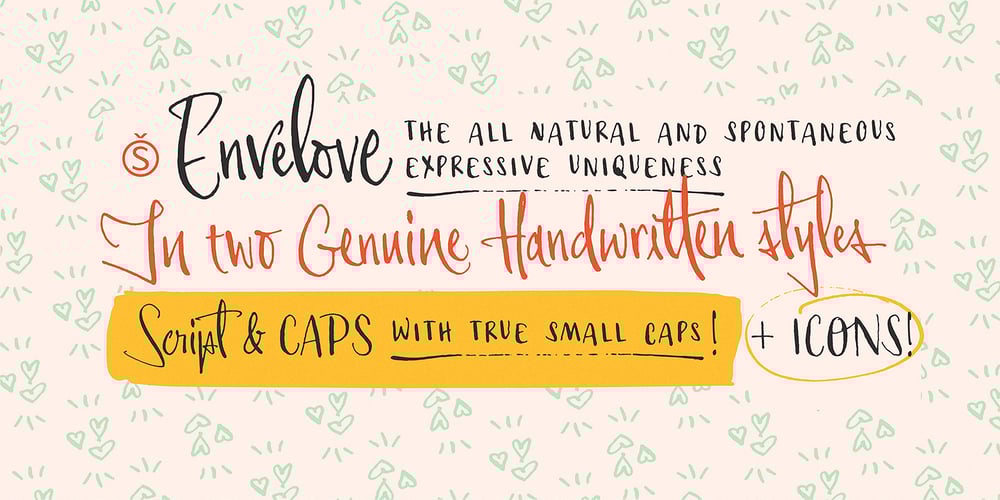
Envelove Font Family was designed by Alejandro Paul, Guille Vizzari, Yani Arabena and published by Sudtipos. Envelove contains 3 styles and family package options. «Envelove» is the brand new typographic challenge handwritten by Yani Arabena and designed along with Guille Vizzari and Ale Paul, for Sudtipos. It all started as a game for Yani. A carefree and spontaneous calligraphy, making use of the pointed nib with black ink, exploring its expressive possibilities pressing against paper. With time that nib turned into her dearest tool to flow through her writing, breeding this particular style of hers that let her trespass the barrier that kept personal and professional passions apart. All that inspiration is present in «Envelove», a play on words that reflects the love of letters. An expressive free-and-easy typeface that follows no formal calligraphic model and lets itself go with the meaning of words, rhythm and sensations. «Envelove» successfully joins three different fonts, «Envelove Script»—free, spontaneous and unique of its kind—going together with «Envelove Caps»—an uppercase style that builds controlled but dynamic words thanks to its alternates and ligatures, and to its own true Small Caps set as well—and «Envelove Icons», ideal to decorate and bring to life any written message. «Envelove» encourages you to write as if you have a nib, ink and an envelope. It invites you to take part in other worlds like a magic cocktail, a summer night, a long-awaited reunion, a first dance, a dish cooked with your own hands. The fashion world, gourmet, stationery, scrapbooking and everyone where a Handmade or Handcrafted feel is craved for, save a special place for «Envelove». (The illustration series that are shown with «Envelove» were made by the incredible Argentine illustrator Eugenia Mello.)